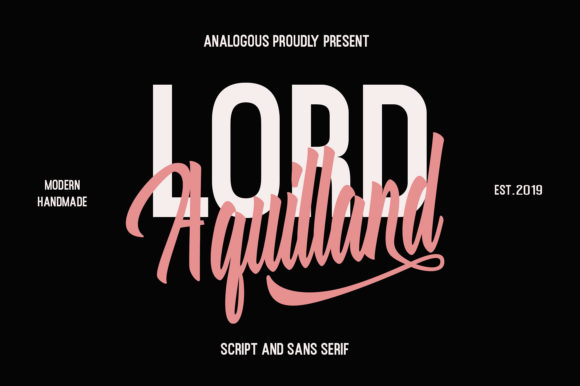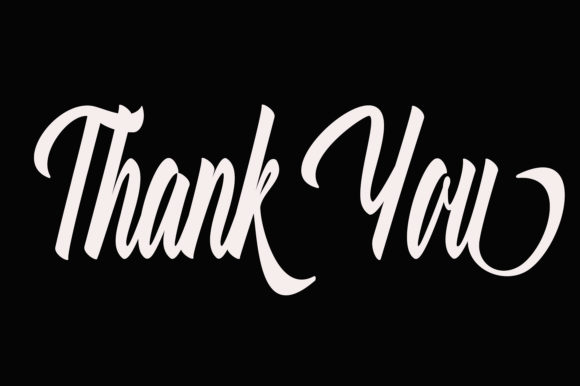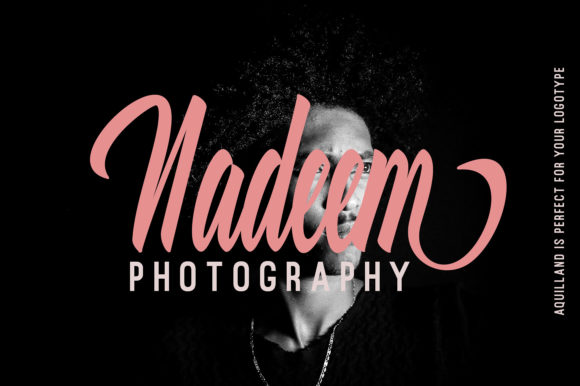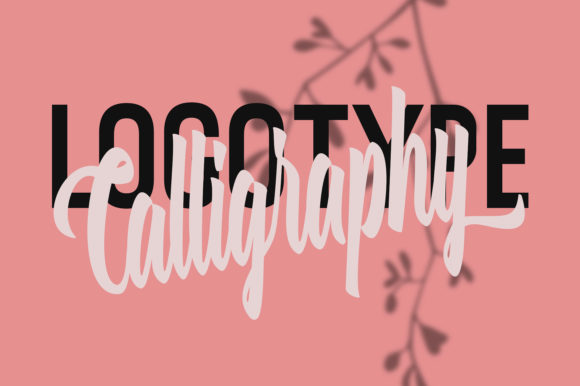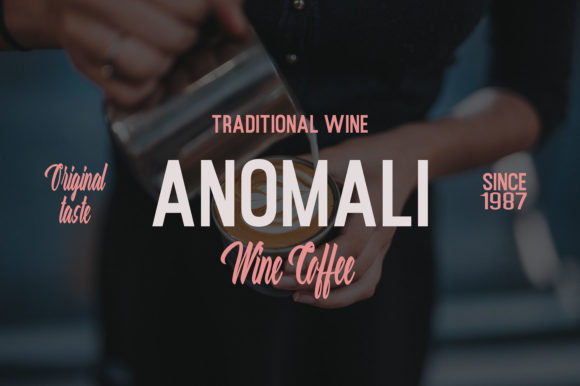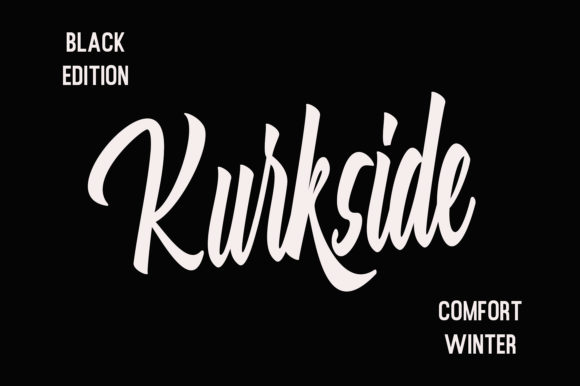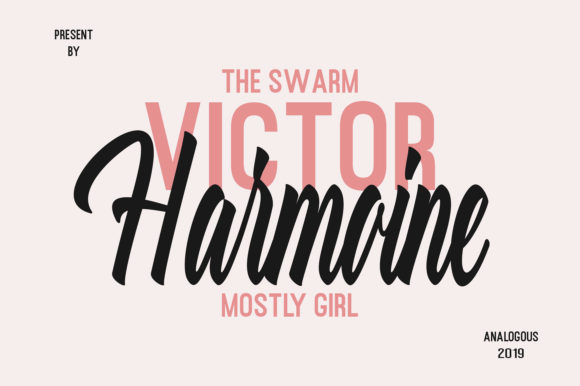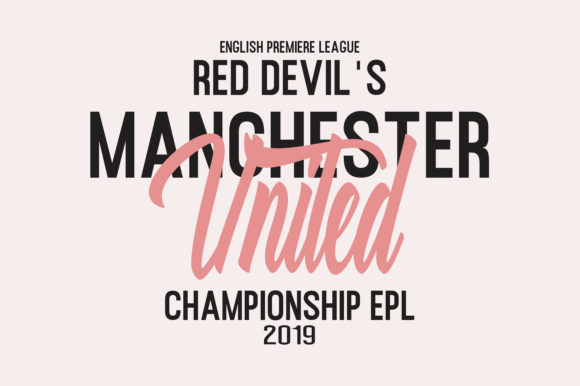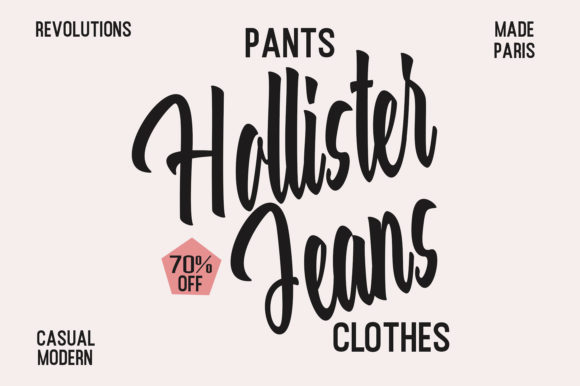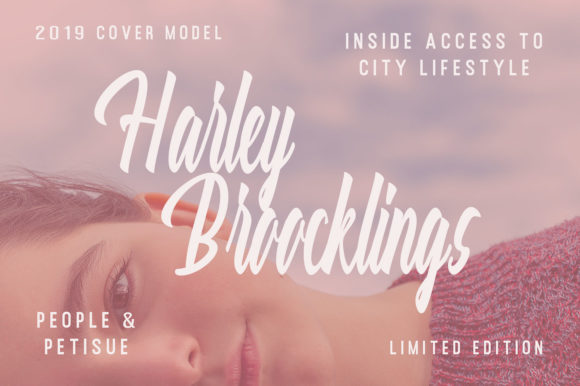
Aquilland Font
About Aquilland Font
Aquilland is a stunning script font with a contemporary style. It will add a unique look to your next design project!